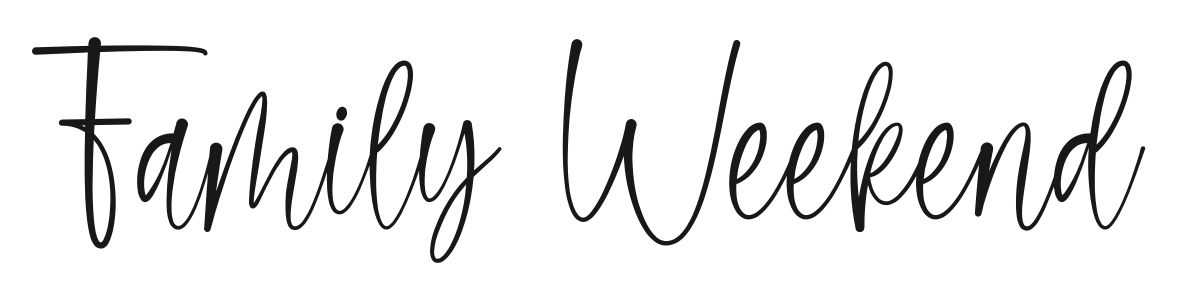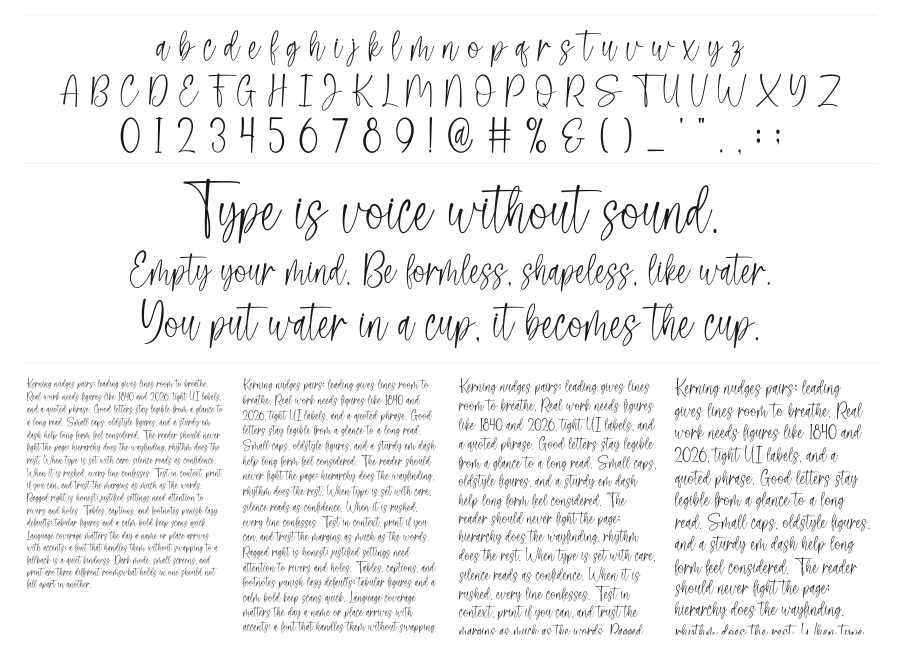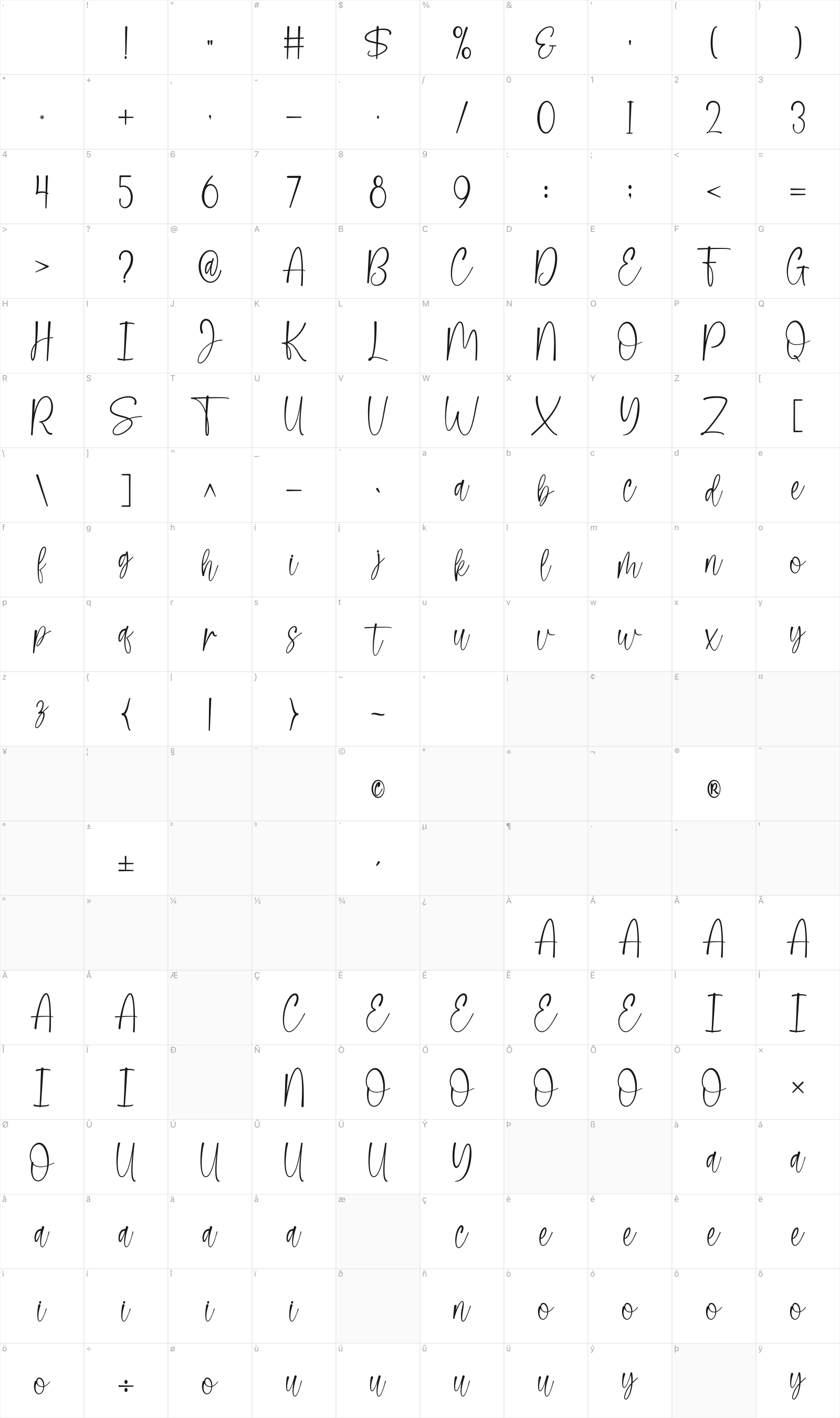
Family Weekend
Family Weekend is a casual connected script with flowing loops and a naturally relaxed handwritten quality. The loose rhythm and gentle incline give it warmth without feeling overly formal or stiff. It suits branding and packaging projects that call for an approachable, personal touch.